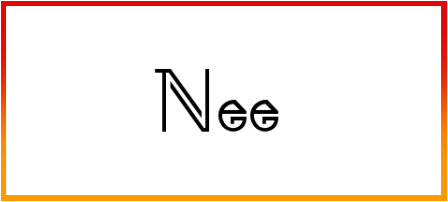
Ñe’ê
Ñe’ê is a fancy font made by M. Micaela Karaman (2013). It's a decorative display font with plenty of personality, made to grab attention. It's a free download, and you can try it with your own text in the preview above first.
- Designer: M. Micaela Karaman
- Year: 2013 (from the copyright line in the font)
- Glyphs: 142
- Languages: English and Spanish
What You Can Type With Ñe’ê
With complete upper and lowercase letters and all ten digits, Ñe’ê is ready for real wording, not just a single headline. Common punctuation such as !, ? and @ is included as well. It also has the accented letters you need for Spanish.
Where Ñe’ê Works Best
Ñe’ê is a natural fit for posters, logos and eye-catching headlines. Its lowercase letters are small compared to the capitals, so set it a size or two bigger than usual. Use it for one standout word or headline and let simpler fonts handle the rest.
Who designed Ñe’ê font?
Ñe’ê was designed by M. Micaela Karaman. The copyright line inside the font is dated 2013.
Does Ñe’ê support accented letters?
Yes. Ñe’ê includes the accented letters needed for Spanish, so it works for more than just English.